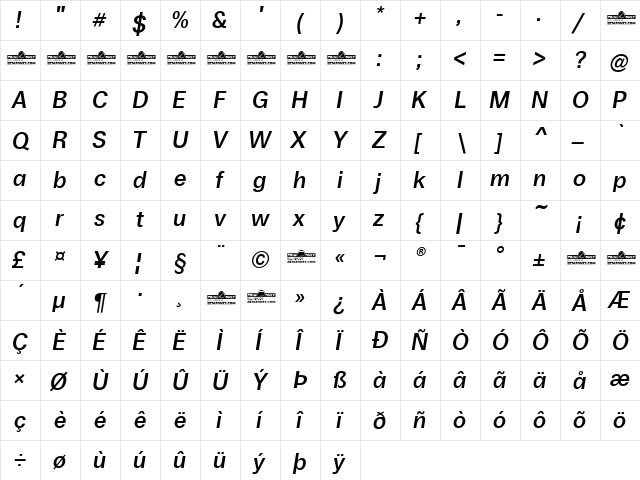
Boring Sans A Trial Medium Italic
| Foundry | Zetafonts |
| Designer | Cosimo Lorenzo Pancini |
Design Context for Boring Sans A Trial Typeface
Boring Sans A Trial is a composed and adaptable typeface that performs quietly and consistently across a wide range of design contexts. Its italic angle brings a sense of urgency and motion to the letterforms.